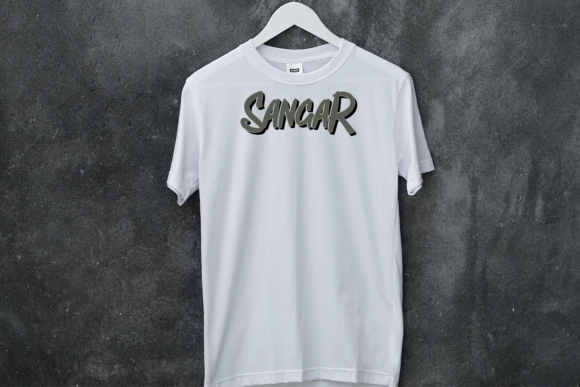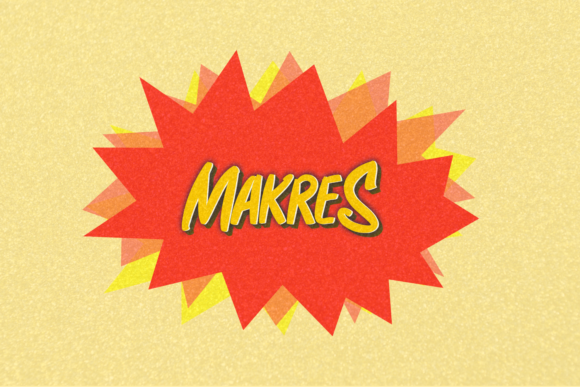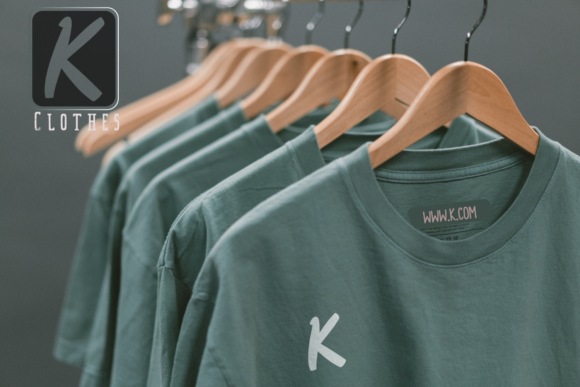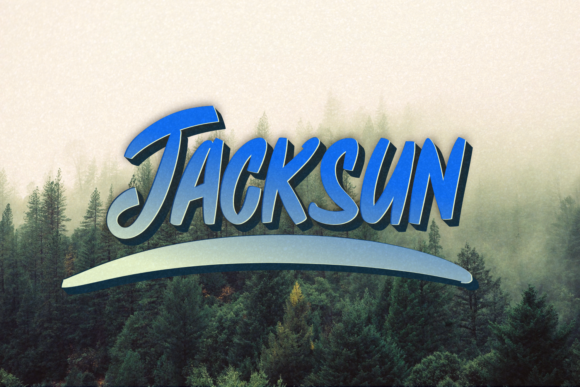
Introduction to Jacksun Font
Jacksun is a fun and trendy display font.
Interesting and natural, this font will be the ideal fit to a wide variety of designs, both formal and informal .
Key Features of Jacksun Font
Why Choose Jacksun Font?
Jacksun Font offers exceptional quality and versatility, making it a valuable addition to your design toolkit. Whether you’re creating for personal projects or commercial use, Jacksun Font delivers professional results.